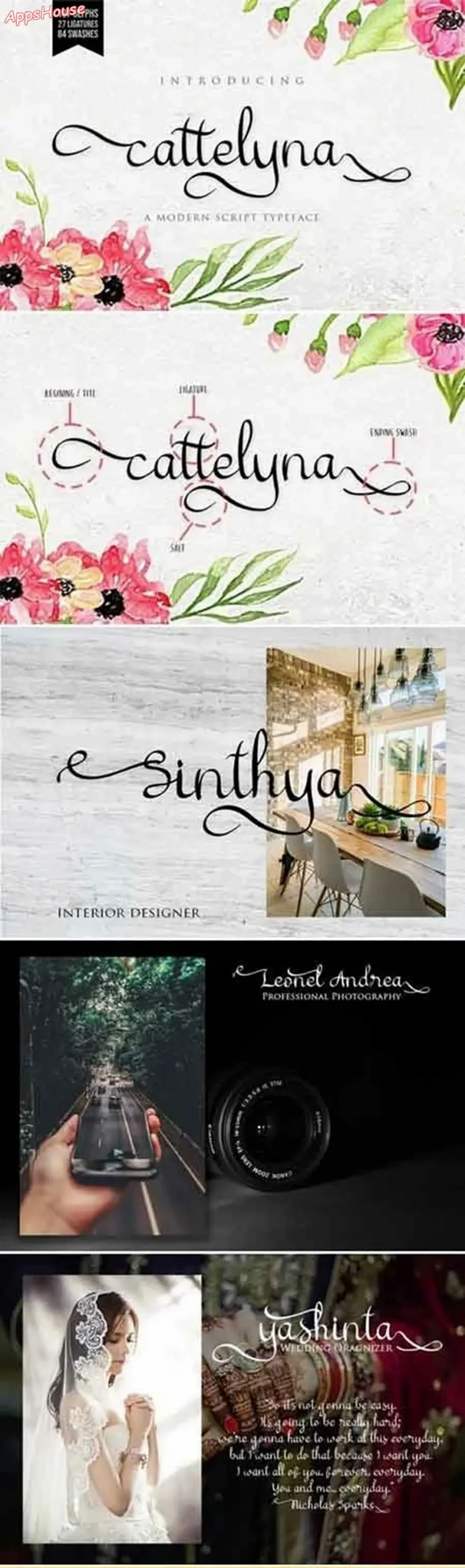
Cattelyna-Classy Calligraphy Font
The Cattelyna-Classy Calligraphy Font is a beautifully crafted typeface that embodies elegance and sophistication. Perfect for a variety of design projects, this font adds a touch of luxury to your work.
• Stylish calligraphy design
Ideal for branding, logos, invitations, and any print or digital projects that require an elegant touch.